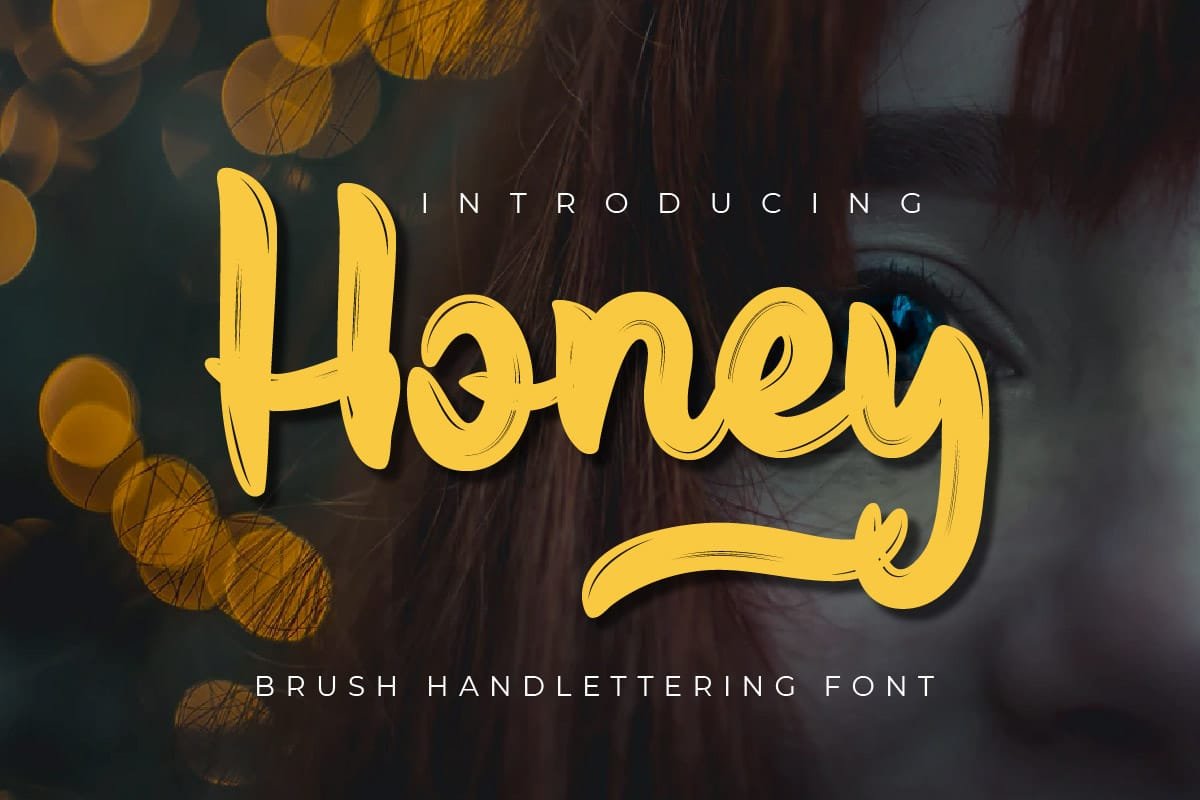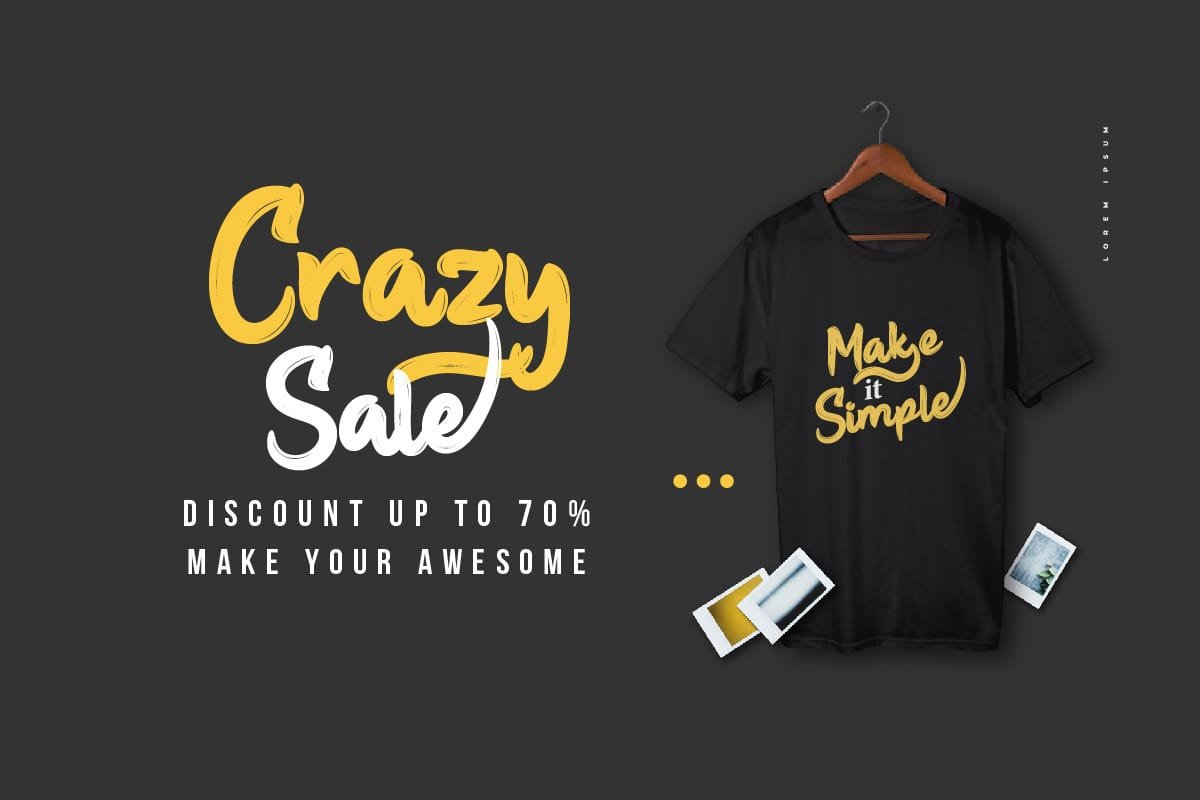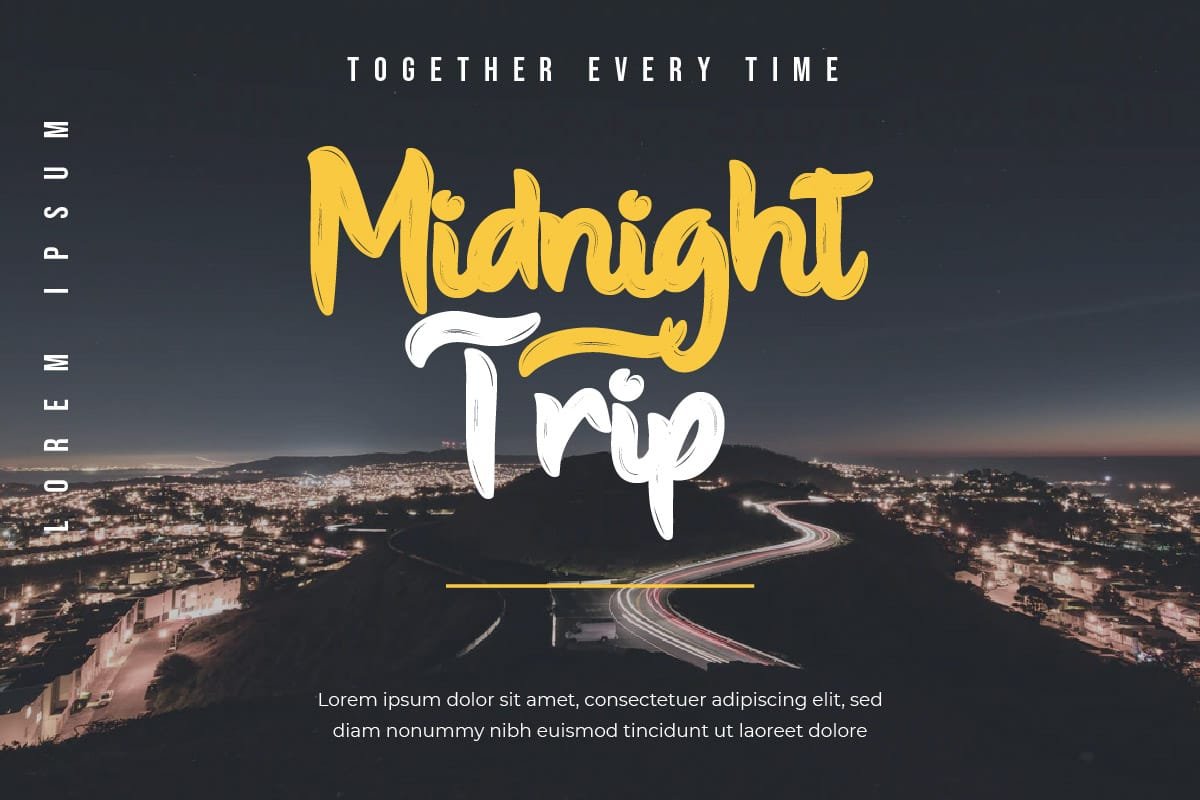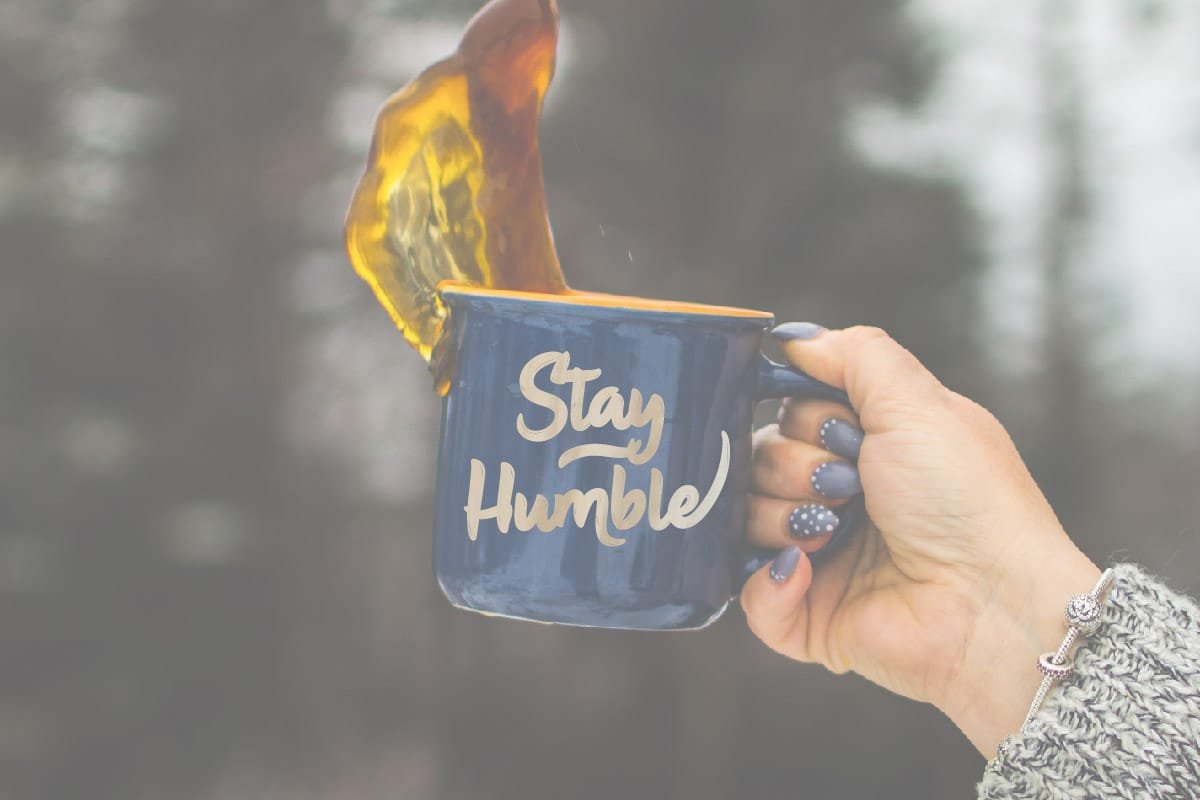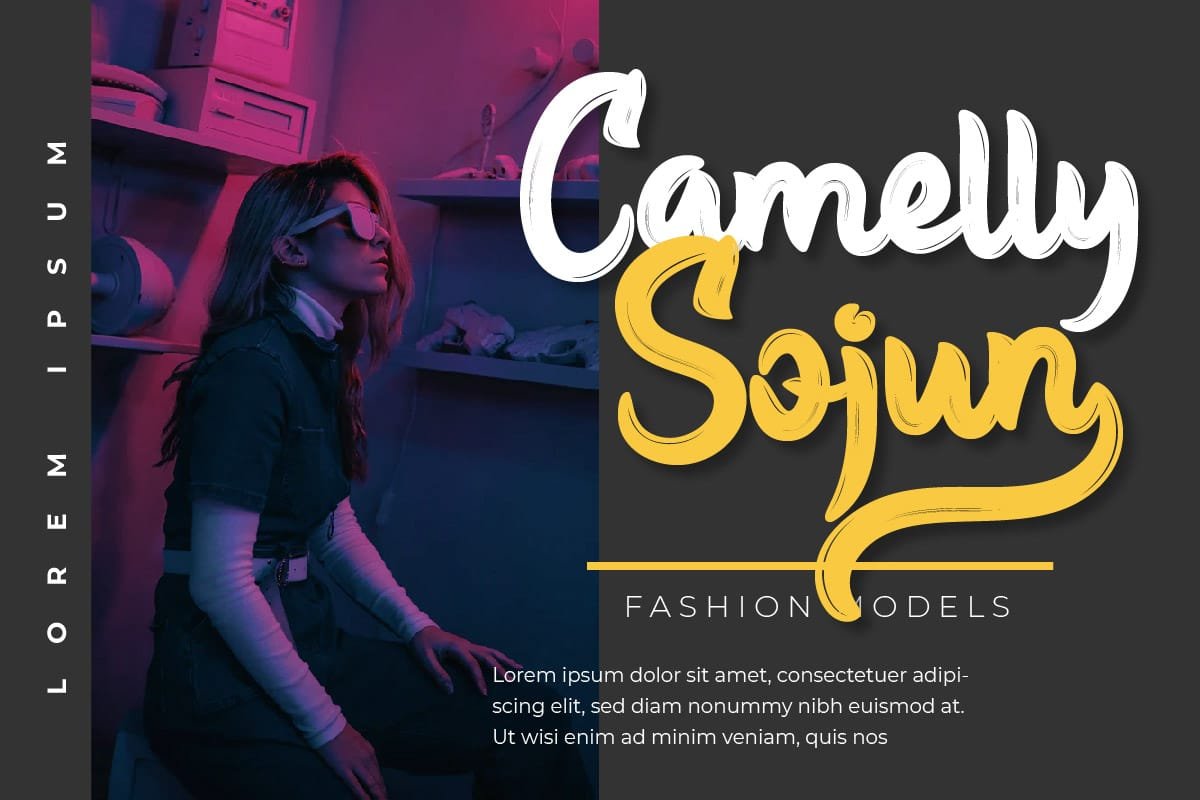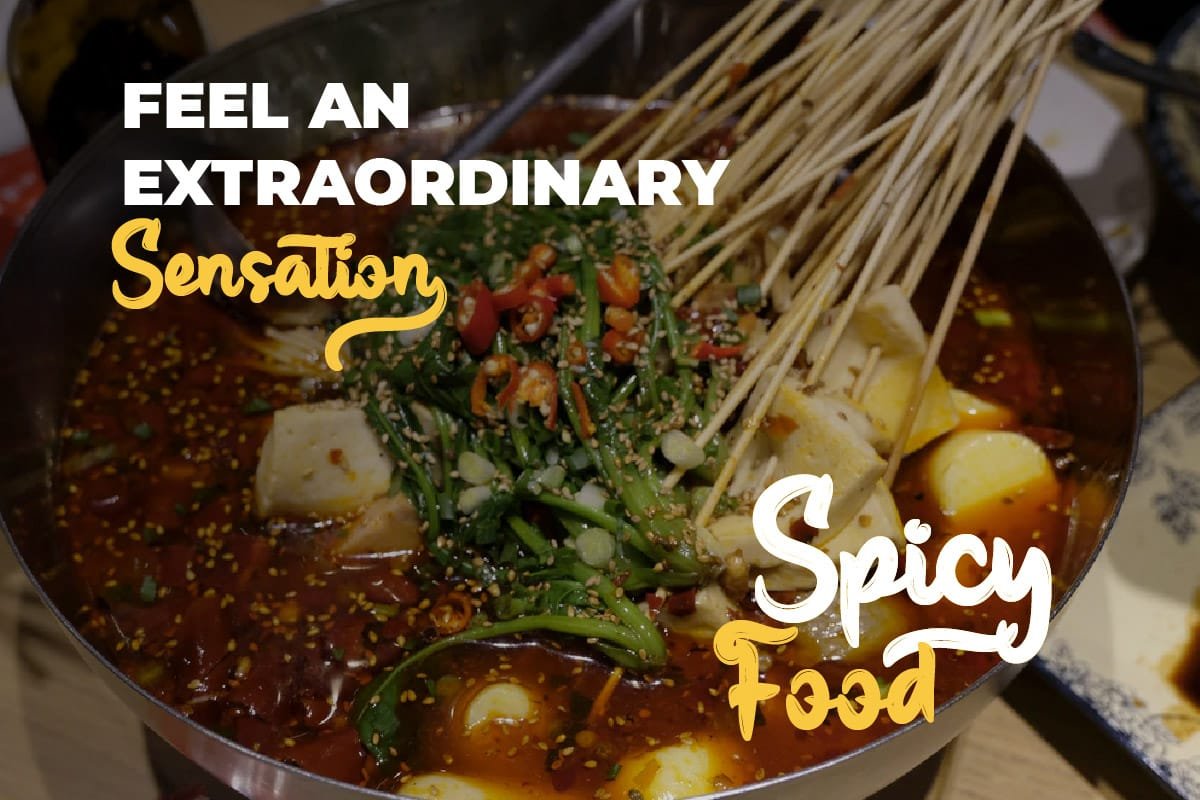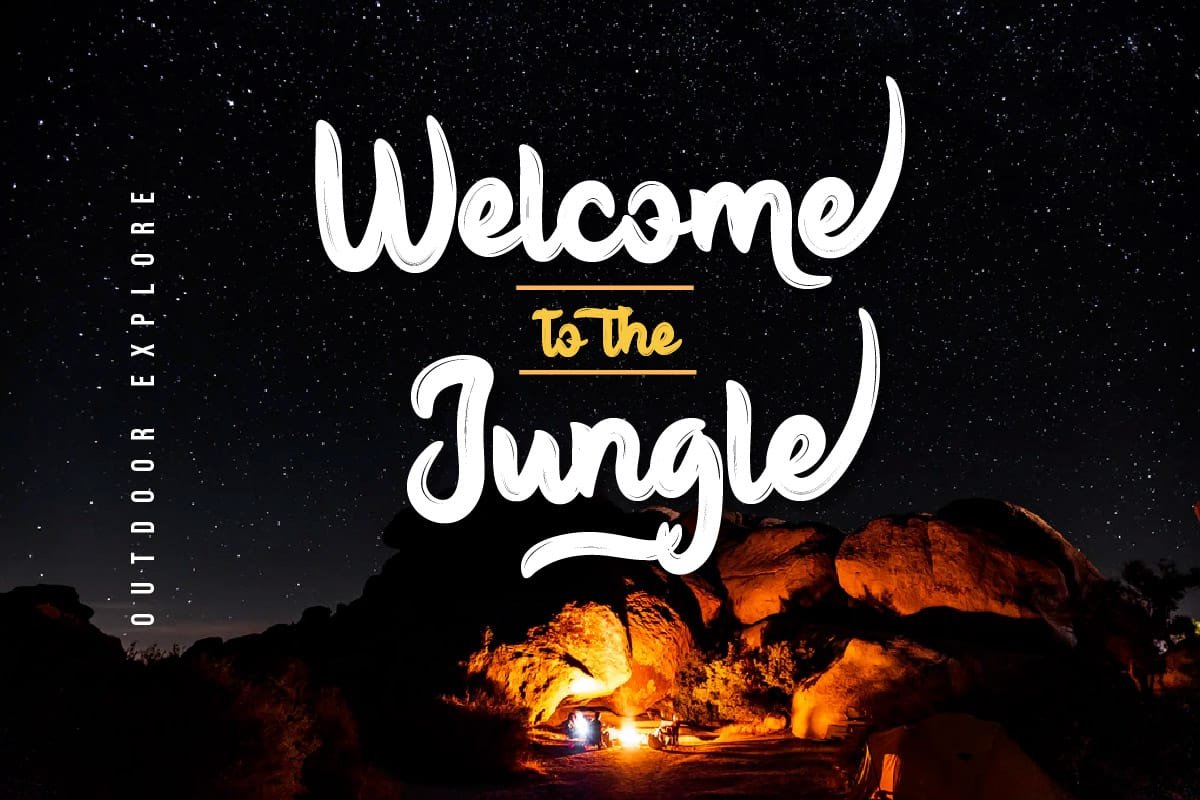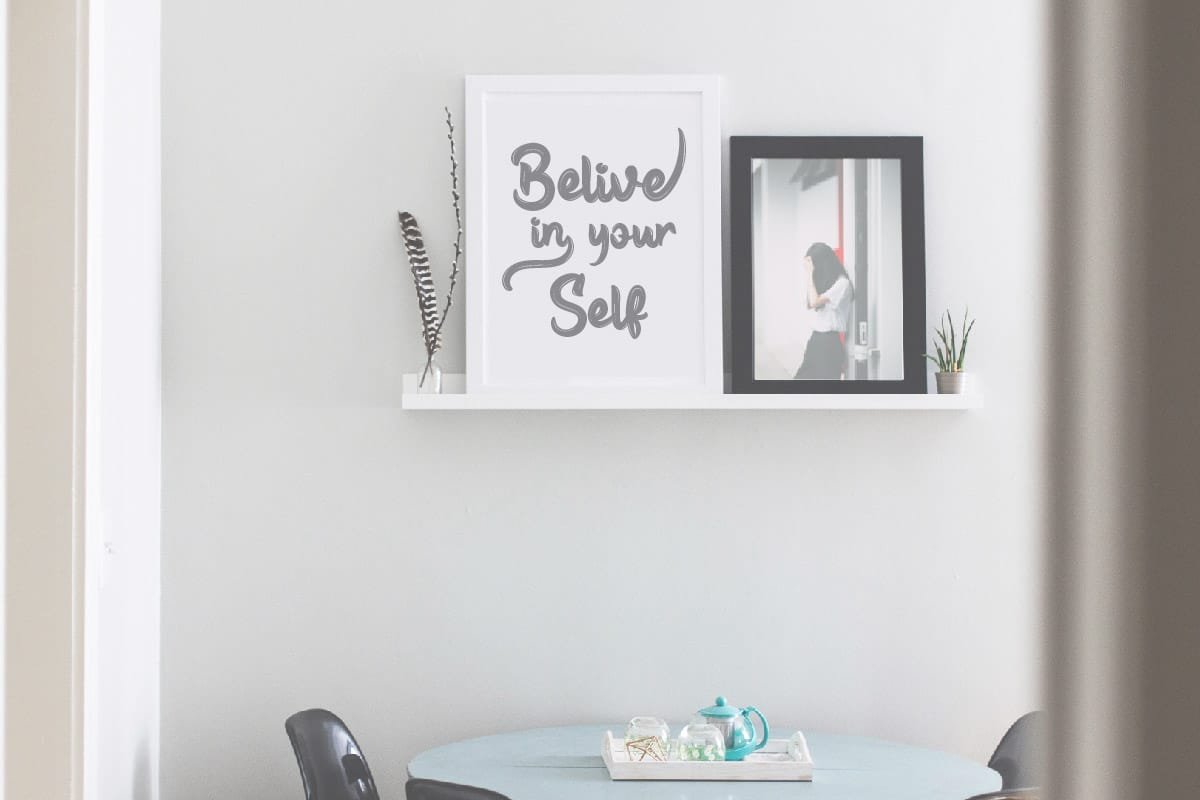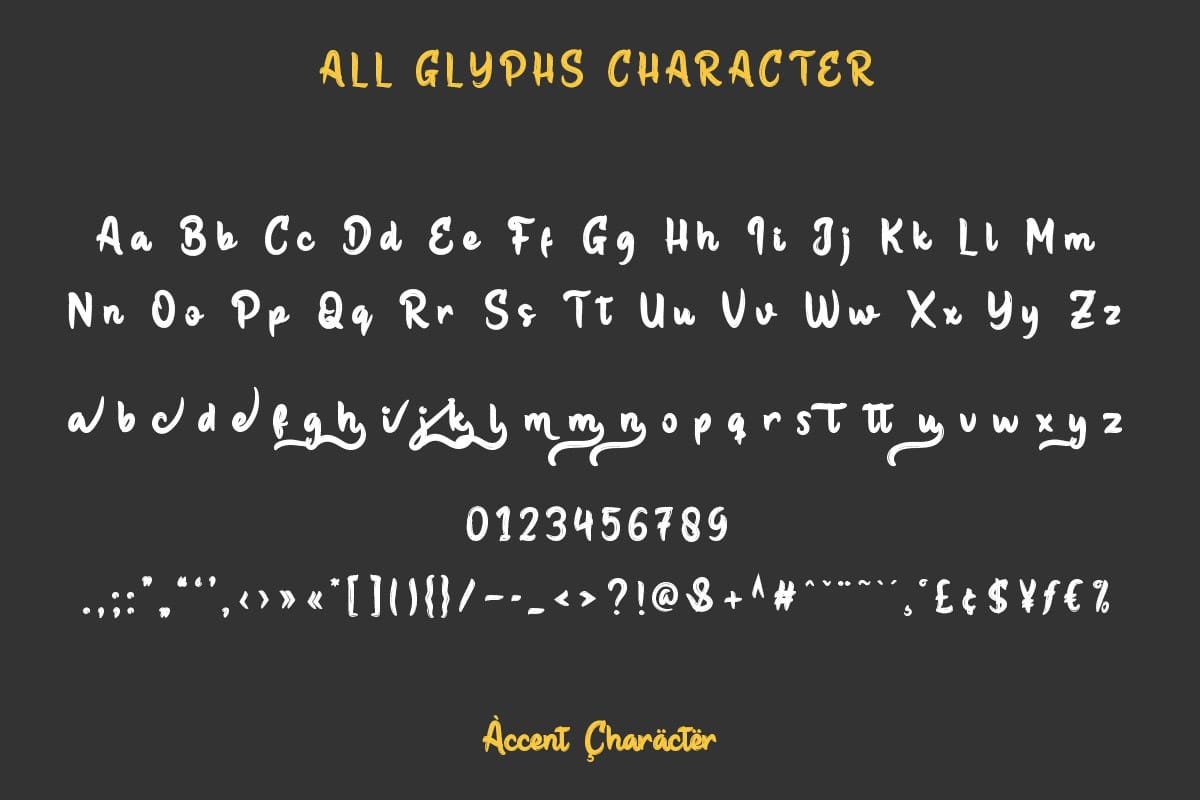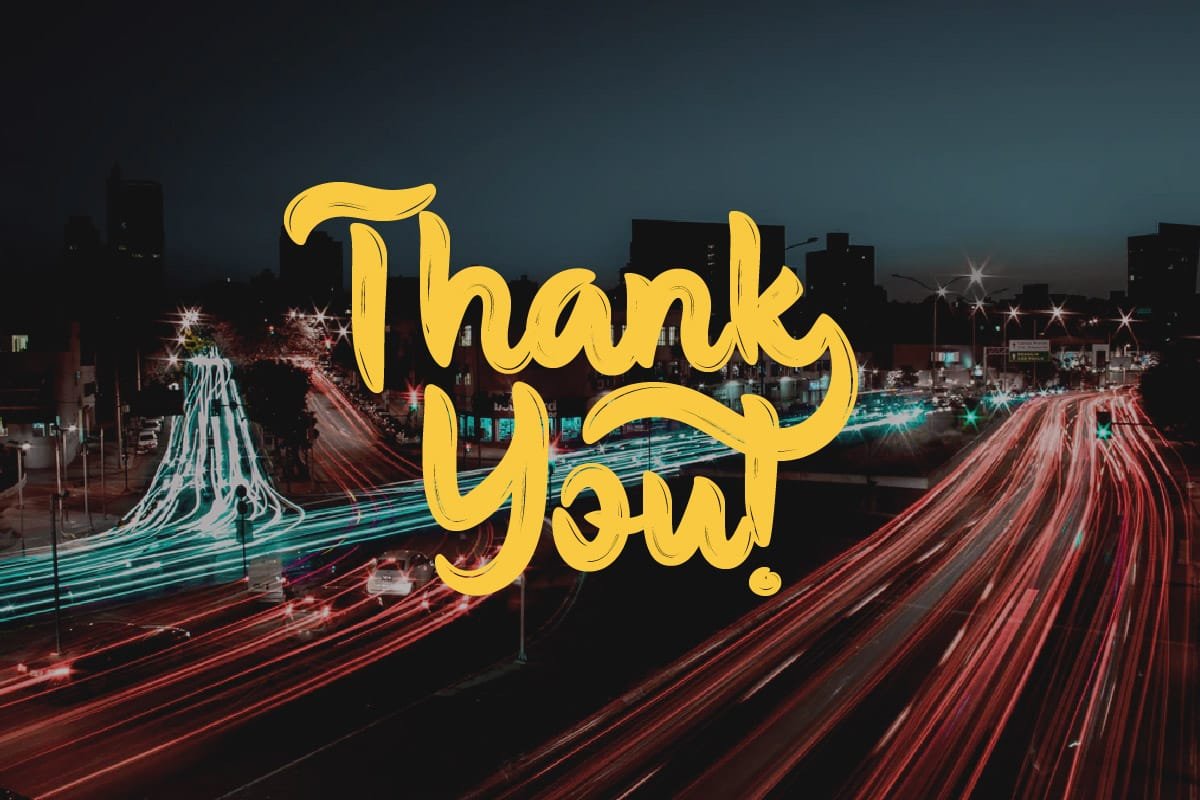
- Honey – Brush Handwritten Font
Indulge your sweet tooth with Honey – Brush Handwritten Font, the font that adds a touch of whimsy and delight to every project! With its playful strokes and cheerful demeanor, Honey brings a sense of joy to everything it touches. Whether you’re designing adorable greeting cards, creating mouthwatering food packaging, or adding a dash of sweetness to your social media graphics, Honey is your go-to font for spreading smiles and good vibes. Get ready to satisfy your cravings for creativity with Honey – the font that’s as sweet as can be!